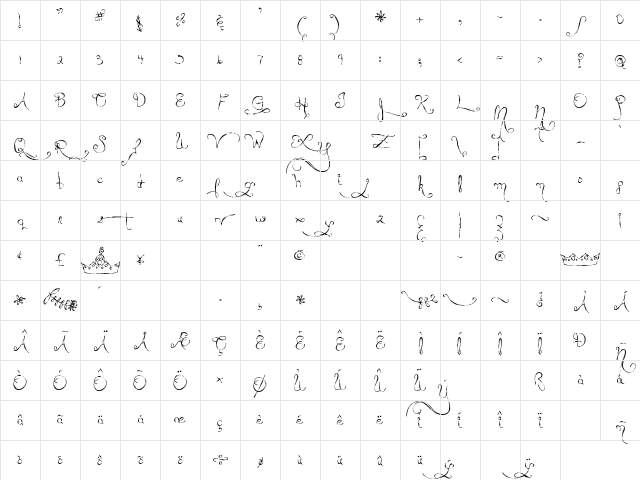
MTF Queen Of Sketchyland Regular
Designer: Miss Tiina
Design Context for MTF Queen Of Sketchyland
MTF Queen Of Sketchyland is a composed and adaptable typeface that performs quietly and consistently across a wide range of design contexts.